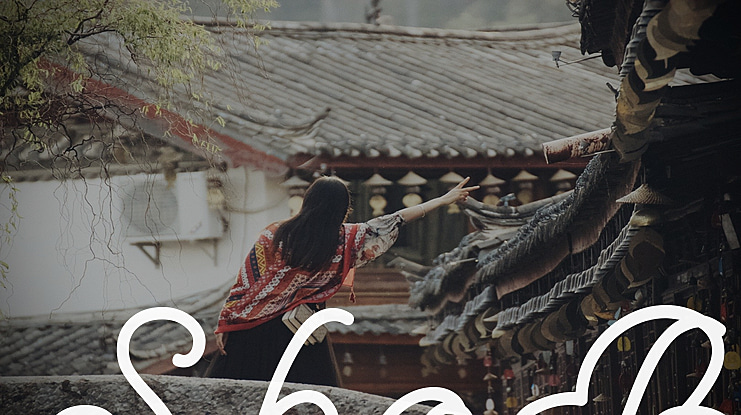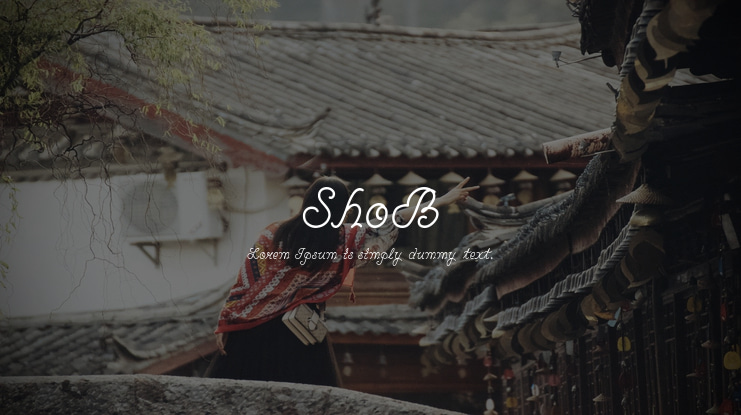
ShoB Font Family
typerajdeep
Shobha Rajan is a poet, artist for many, and a fun-loving amazingly positive person for all who interact with her.
Possibly her innate free spirit and zest for life made her the versatile person that she is. She sees beauty in all things and that is perhaps evident in her handwriting. Her unique style of handwriting has made countless people request her to write for them so that their thoughts can have a more favorable reaction from the reader.
This ShoB Font is created as an attempt to embody her handwriting style in English.